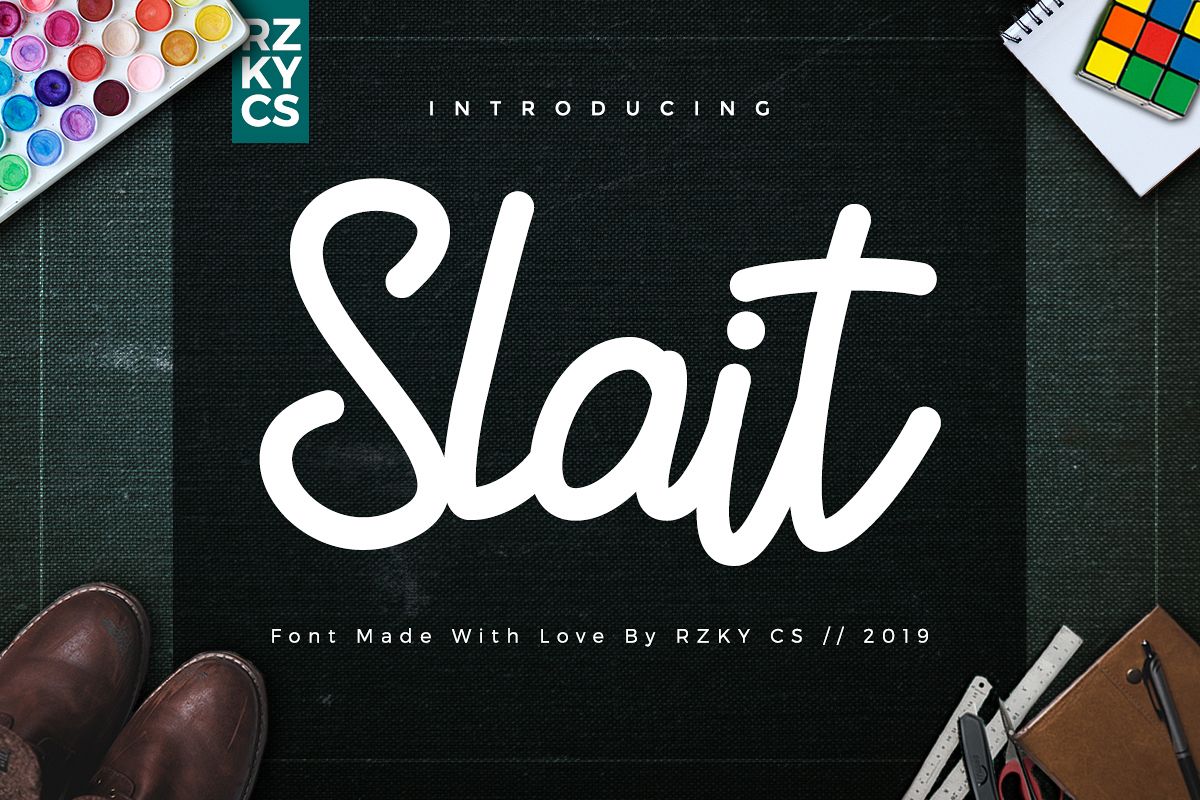
Slait Monoline Script
Introducing the new font
Slait Monoline is a modern script. Font with love useful for you who needs a typeface for headline, logotype, special event, travel promo, fashion event, apparel, invitation, branding, packaging, advertising etc. This typeface is comes in uppercase, lowercase, punctuation, numeral, ligatures and alternate.